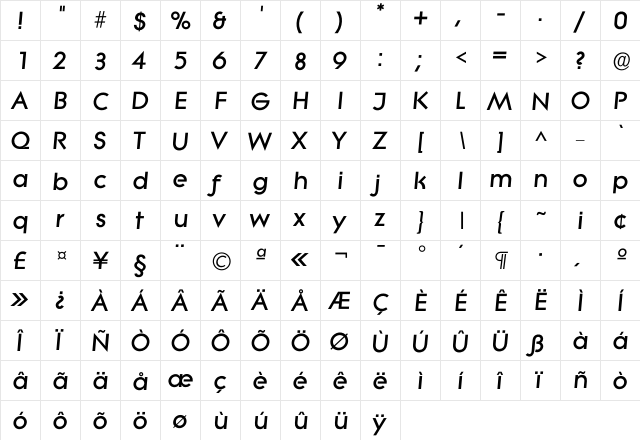
Ilitera Heavy
Design Context for Ilitera Typeface
Ilitera offers clean, dependable letterforms without strong stylistic allegiance, making it a practical choice for designers who need flexibility.
Pro Tip: Use Ilitera in both headline and body roles to test its range before committing to a single application.